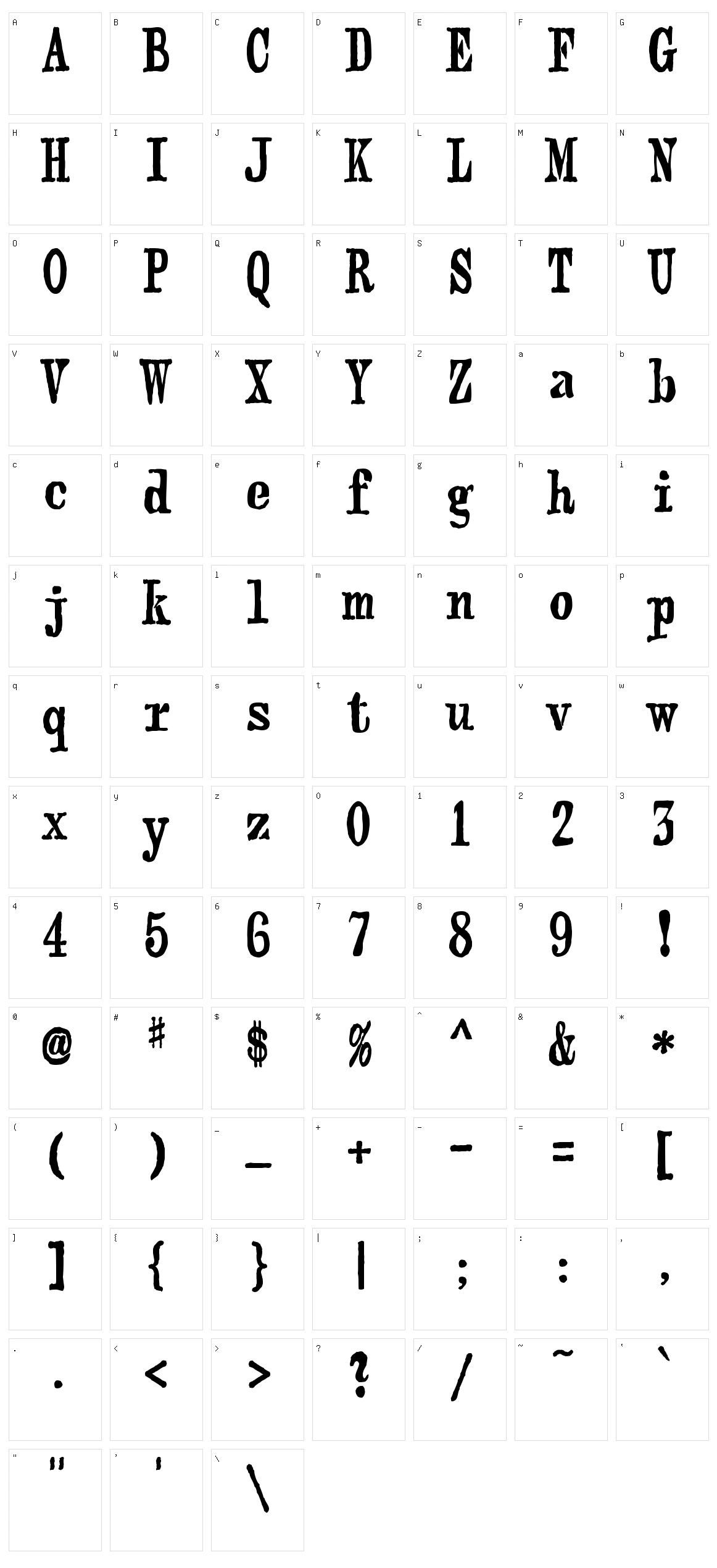
Webster
Designed by: Emerald City Fontwerks
Category: Eroded
inspired by the last of a breed,
a dusty old ibm-compatible, 286 computer,
still booting up somewhere in the outskirts
of fountain hills, arizona....
"webster"
handcrafted in the emerald city
by steven j. lundeen
and there sits hjalmar,
patiently,
endlessly waiting for his computer to boot....